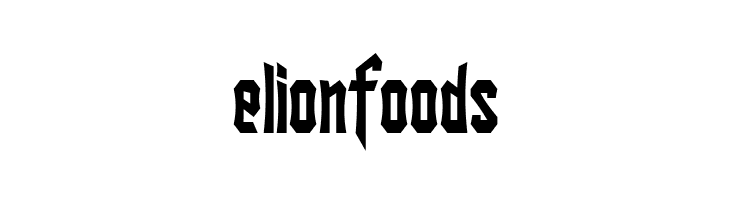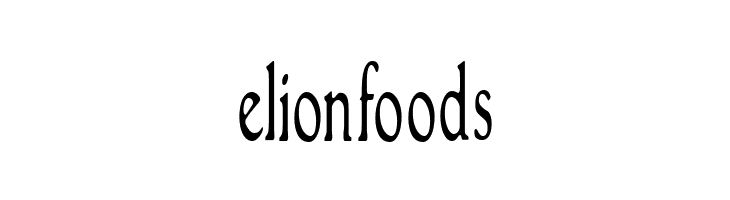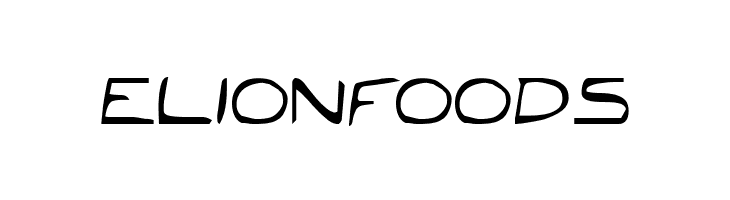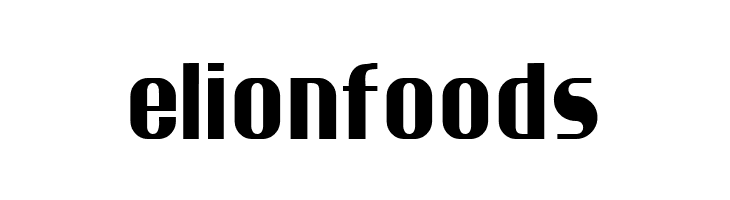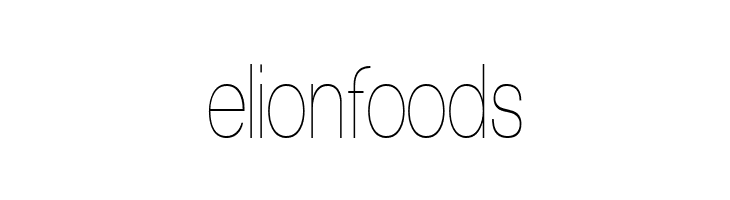
A bold, angular, and condensed font ideal for impactful headlines.
An ultra-condensed, modern font with thin, elegant lines and a minimalist aesthetic.
An elegant, condensed script font with ornate uppercase letters.
A futuristic, condensed font with angular, geometric shapes and a robotic aesthetic.
A futuristic, geometric font with sharp angles and a condensed style.
A bold, hand-drawn, and condensed font with a dynamic and energetic style.
A classic, light serif font with a condensed width and medium contrast.
A sleek, modern, condensed oblique font with a geometric structure.
A bold, condensed, and geometric font with a modern aesthetic.
A bold, geometric, and condensed font with a futuristic style.
A bold, angular, and condensed font with a modern, geometric style.
A bold, condensed font with a dynamic and energetic style.
A bold, condensed font with a modern, geometric style.
A condensed, modern font with tall, narrow letters and consistent stroke width.
A bold, condensed font with a modern and impactful style.
A sleek, modern, and condensed font with thin, uniform lines.
A bold, condensed font with high contrast and decorative style.
A bold, condensed italic font with a modern, dynamic style.
A bold, geometric, and condensed font with a futuristic style.
A bold, condensed Blackletter font with intricate Gothic styling.
A bold, condensed font with a modern and impactful style.